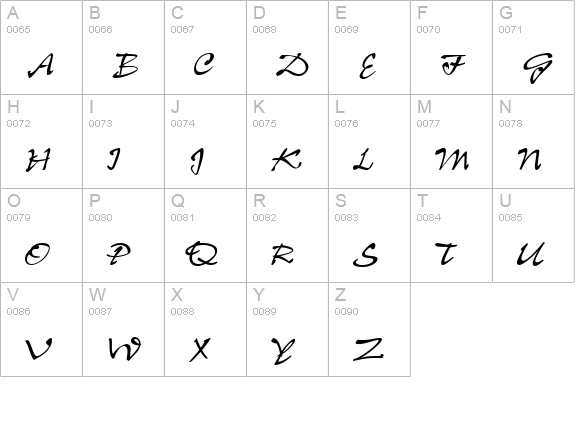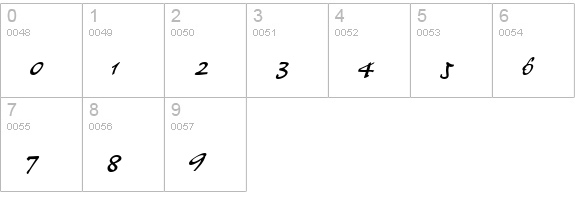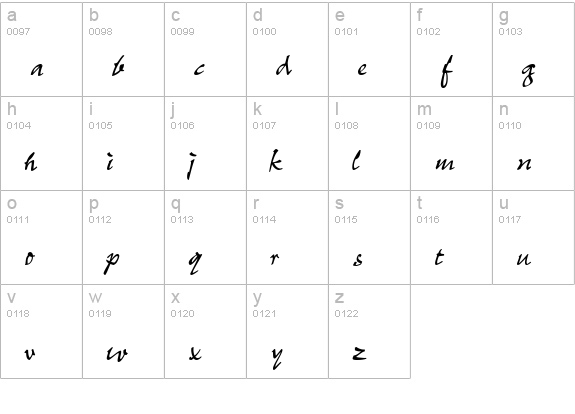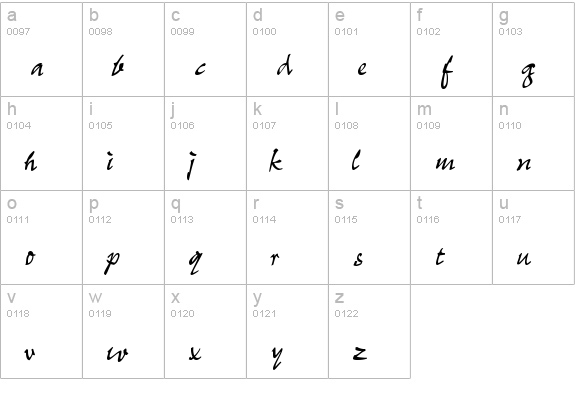
TR Pepper Font Details
Introducing TR Pepper font - a striking typeface that exudes elegance and modernity. This versatile font features clean lines and a sleek design, making it perfect for a wide range of projects including branding, packaging, editorial design, and more. TR Pepper is a contemporary font that strikes the perfect balance between sophistication and readability, making it ideal for both print and digital applications. With its unique letterforms and stylish aesthetic, TR Pepper will surely make your designs stand out from the rest. The best part? TR Pepper is available for free download at FontsMarket.com! Whether you're a designer looking to add a fresh new font to your collection or a business owner in need of a stylish typeface for your branding materials, TR Pepper is the perfect choice. Download it today and see the difference it can make in your projects.